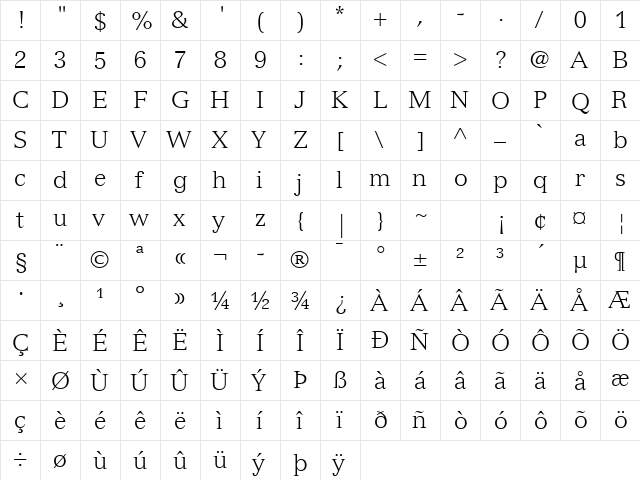
Versailles LT Com 45 Light Font Preview
Versailles LT Com 45 Light
Versailles LT Com 45 Light Font Details
| Style | 45 Light |
| Foundry | Linotype GmbH |
| Designer | Adrian Frutiger |
Design Context for Versailles LT Com Typeface
Versailles LT Com takes a measured approach to typography — its balanced proportions and neutral character make it a reliable workhorse for both digital and print work. Its slender proportions lend an understated elegance to any composition.